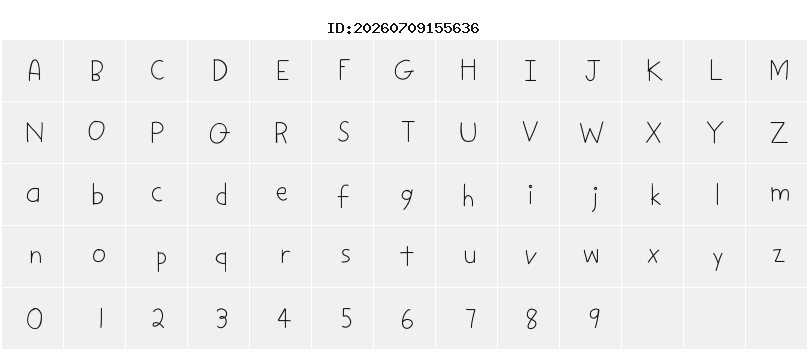
DPStick Preview
• Font Name: DPStick
• Full Font Name: DPStick
About DPStick.ttf
DPStick.ttf is a modern, elegant sans-serif font designed for ultimate readability and visual harmony. Perfect for branding, headlines, web design, and print materials.